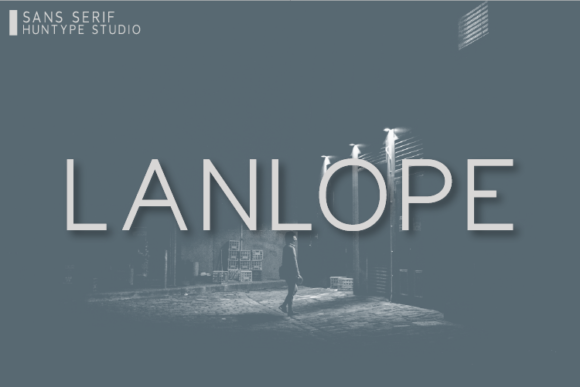
Unleash the enchanting charm of Christmas with Lanlope, the captivating font that transforms your designs into festive masterpieces. This elegant sans serif font dances across the page with its delicate lines and crisp curves, evoking the magic of the season.
Picture your Christmas invitations adorned with Lanlope's ethereal beauty, inviting guests to a world of cheer and warmth. Its slender strokes and airy presence add a touch of lightness, making each invitation a cherished keepsake.
Embrace Lanlope's versatility and let your creativity soar. Craft enchanting logos that radiate the spirit of Christmas, capturing the hearts of customers and leaving a lasting impression. From whimsical branding to heartwarming quotes, Lanlope's timeless appeal weaves a spell of enchantment throughout your designs.
Immerse yourself in the festive embrace of Lanlope, the font that ignites the joy and wonder of Christmas. Each letter becomes a delicate ornament, strung together to create a tapestry of festive cheer. Let the magic of Lanlope bring your Christmas creations to life, spreading joy and inspiring awe wherever it goes.